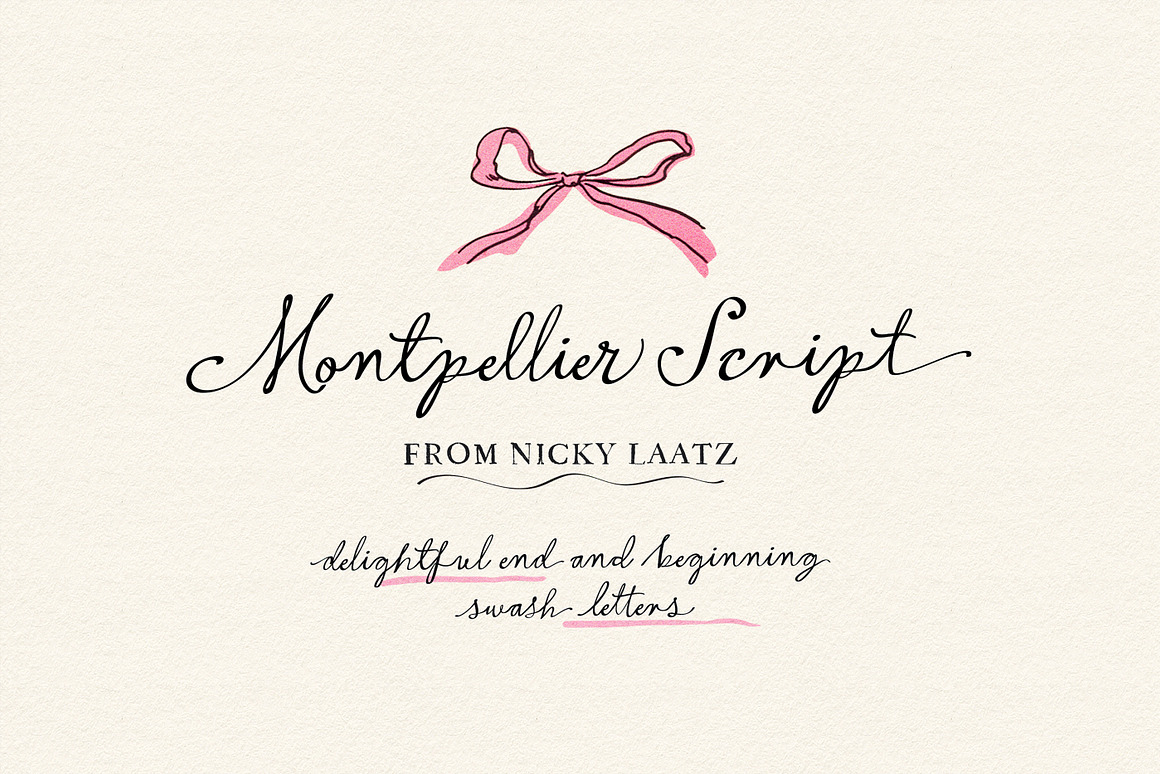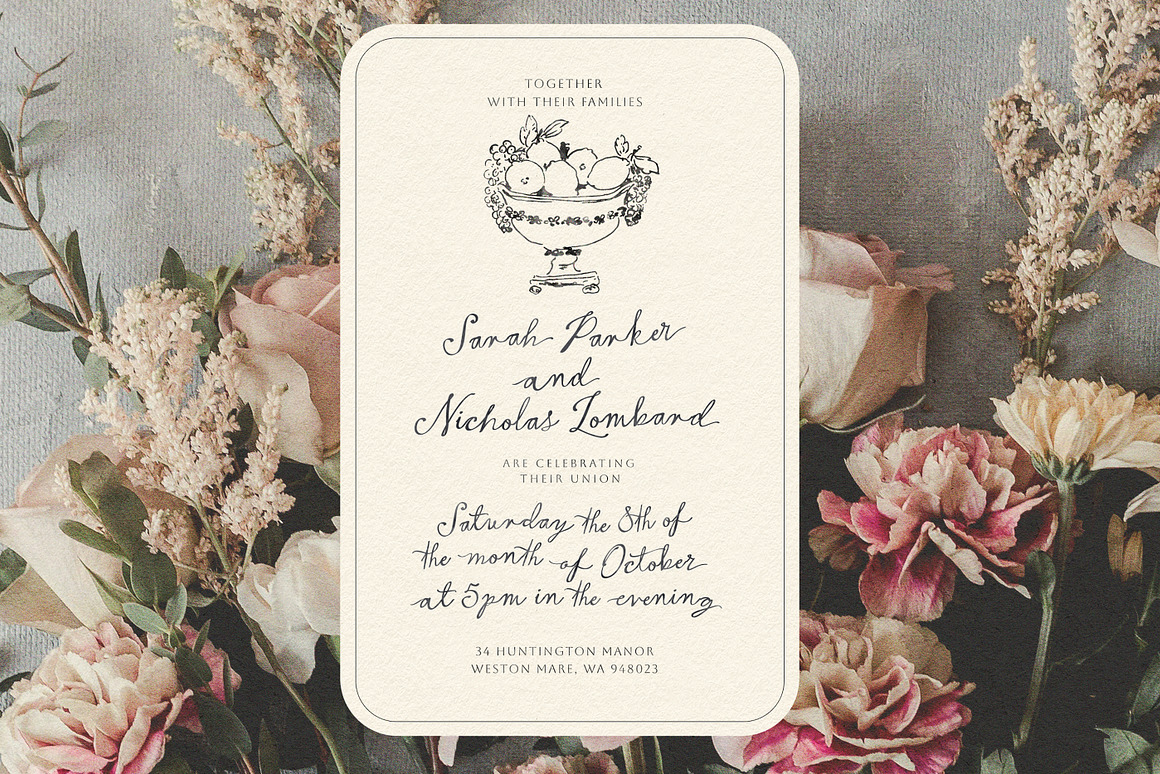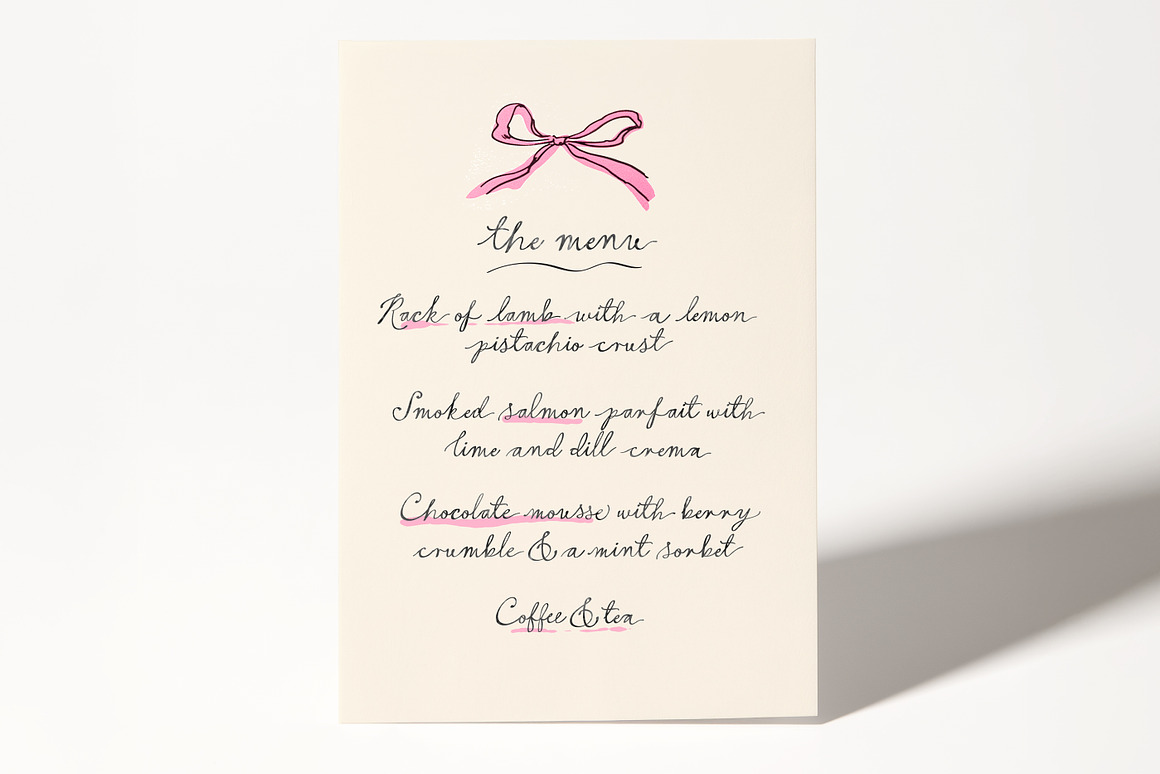
The Montpellier Script Font Free Download is an elegant, flowing script typeface perfect for wedding invitations, fashion branding, luxury packaging, social media quotes, and high-end stationery. Its graceful curves and handcrafted style bring a romantic and refined touch to every project.
What makes the Montpellier Script Font so exciting is its perfect balance between sophistication and charm. This font feels personal yet polished—ideal for designs that aim to connect emotionally while maintaining a premium look.
The Montpellier Script Font family includes Regular, Italic, and Swash variants, giving designers flexibility to create expressive, beautifully layered typography.